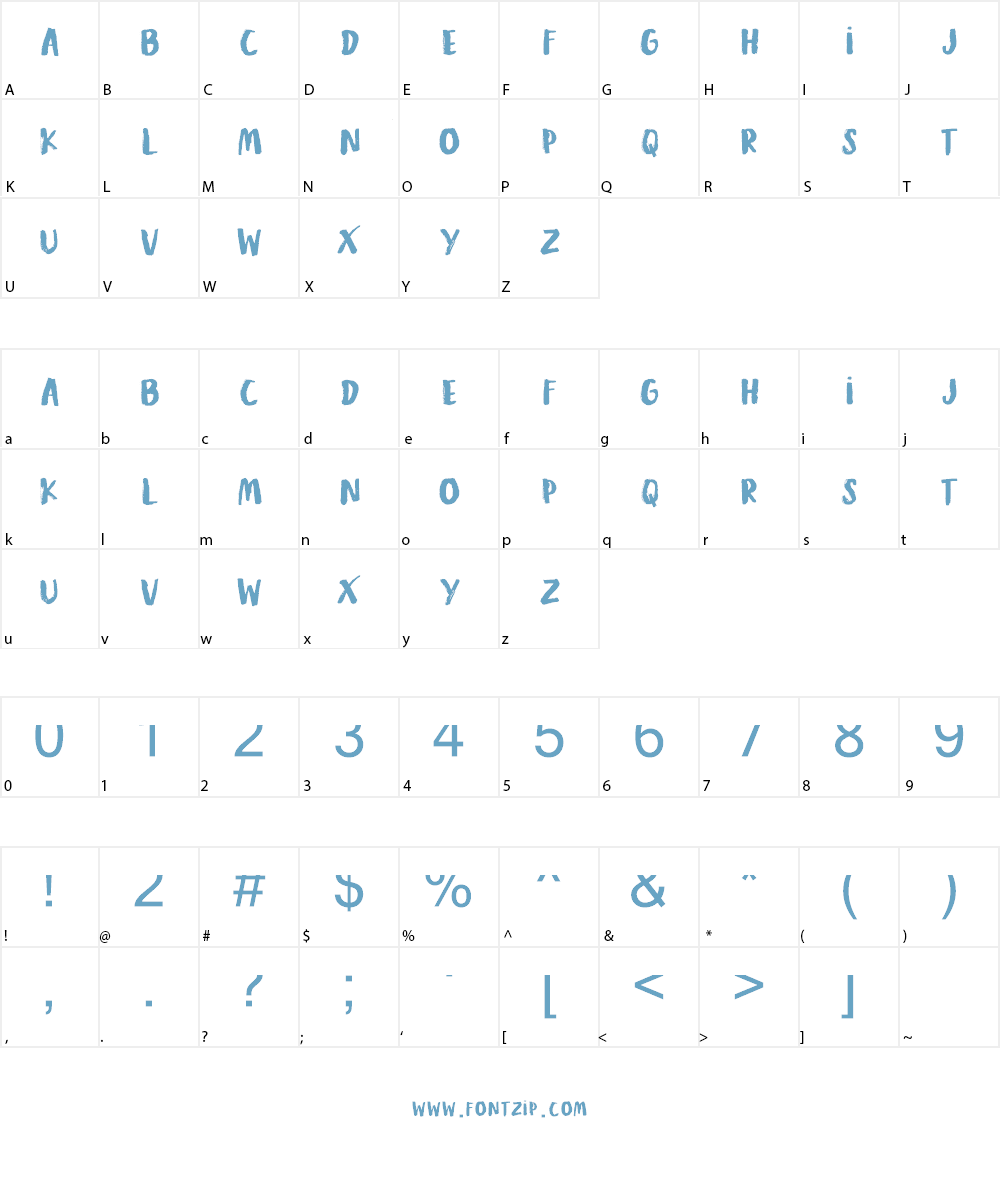
Tropical Asian, inspired from the summer vibes and the fun of careless brush and ink play in paper. Perfectly fit for welcoming summer and your casual fun branding projects.